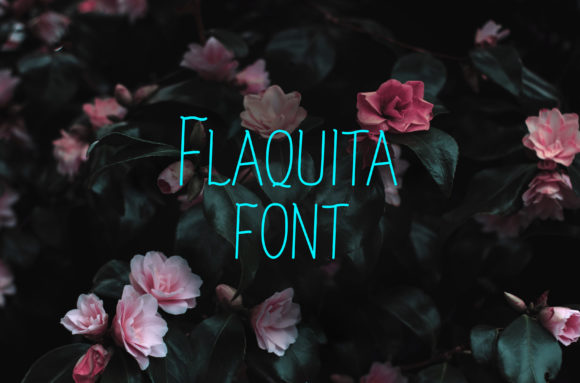
Flaquita Font
Introducing Flaquita, the captivating script font that will add a touch of authenticity to your designs. Inspired by Latin scripts, Flaquita exudes a handwritten charm that makes it both approachable and alluring. Each character is carefully crafted to provide exceptional readability, ensuring your message stands out with ease.
Unleash your creativity with Flaquita's versatility. Whether you're designing eye-catching headlines, crafting memorable logos, or creating warm and inviting invitations, Flaquita adapts seamlessly to your vision. Its ability to blend effortlessly with backgrounds makes it an ideal choice for any project.
Embrace the human touch with Flaquita. Its handwritten style evokes a sense of connection and warmth, making it perfect for branding that resonates with your audience. Use it to tell captivating stories, create unforgettable designs, and leave a lasting impression.
Flaquita is more than just a font; it's an expression of individuality and authenticity. It's the perfect choice for designers, creatives, and anyone looking to add a touch of charm and character to their work. Immerse yourself in the world of Flaquita and discover the endless possibilities it holds.